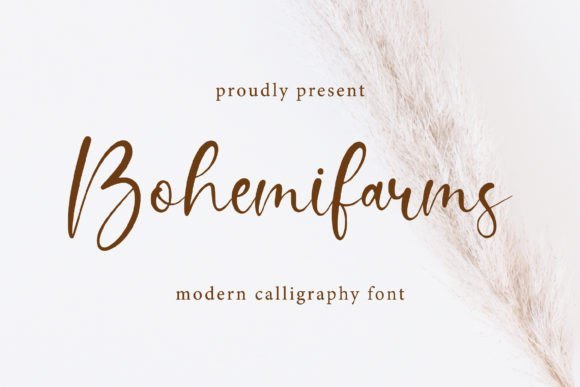
Introduction to Bohemifarms Font
Bohemifarms is a seductive and indulgent typeface that adds a touch of allure to any design.
With its elegant, curvaceous letterforms and subtle sensuality, this font is perfect for creating captivating headlines, luxurious branding materials, and sophisticated packaging Its unique charm and mystique evoke feelings of guilty pleasures and make it an excellent choice for projects seeking to stand out with a hint of forbidden indulgence.